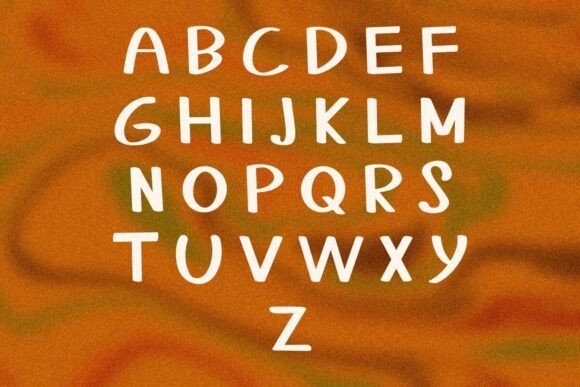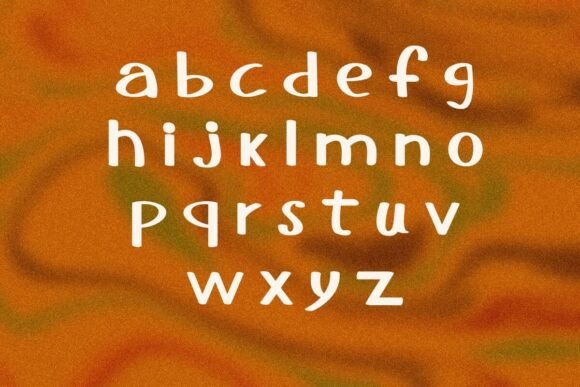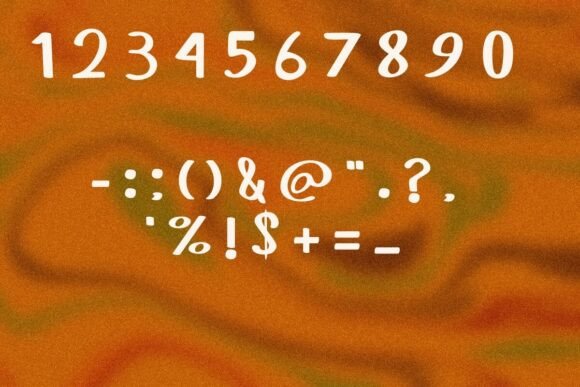
Introduction to Nowhere Font
Have you ever stared at a blank canvas, trying to come up with the perfect design concept for a creative project? The blank space can be intimidating, but the right font can be the spark that sets your imagination ablaze. For designers seeking a unique and personalized touch, the Nowhere Font is an ideal design resource.
This charming, handwritten font is more than just a pretty face – it’s a versatile tool that can add a touch of warmth and approachability to any design. With its slightly imperfect look, the Nowhere Font is perfect for creative projects that require a high level of authenticity. And the best part? It’s available for free download, making it an accessible addition to any designer’s toolkit.
Whether you’re designing invitations, posters, or social media graphics, the Nowhere Font is sure to bring a fresh and creative vibe to your work. With a transparent background, this font is easy to layer and customize, making it a valuable asset for designers who demand high quality results.
Key Features of Nowhere Font
- Includes a range of characters, including uppercase and lowercase letters, numbers, and special symbols.
- Unique, modern design that can add a touch of elegance to any creative project.
Honest Review: Nowhere Font
As a designer, I’m always on the lookout for high-quality design resources to enhance my creative projects. The Nowhere Font caught my attention with its modern and sleek aesthetic, making it perfect for a wide range of applications.
- High-quality design: The Nowhere Font boasts clean lines and a professional look, making it ideal for corporate branding, editorial content, and more.
- Limited character set: While the font itself is well-designed, the character set is somewhat limited, which may cause issues with certain languages or special characters.
- Lack of bold/italic variants: While the regular weight is stunning, the lack of bold and italic variants may limit its use in certain situations.
Overall, I’m impressed with the Nowhere Font’s design and usability. With its high-quality aesthetic and transparent background, it’s a great addition to any designer’s resource library. While it has some limitations, the free download and modern design make it a worthwhile choice for many creative projects.
The Nowhere Font is a versatile and stylish design resource ideal for creative projects. This high-quality font features a transparent background, making it perfect for use in various design applications.
Getting the Most Out of the Nowhere Font
To maximize the potential of the Nowhere Font, use it in creative ways such as:
- Creating eye-catching headings and titles
- Designing stylish logos and branding materials
- Adding a touch of elegance to your digital content
The Nowhere Font is suitable for a wide range of projects, including:
- Business cards and brochures
- Graphic design and visual communications